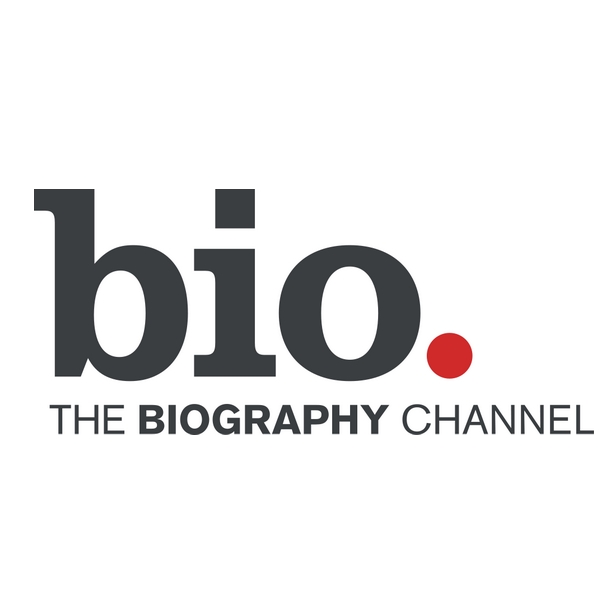
The Biography Channel Font
Fonts in UseThe Biography Channel also known as Bio was a television network dedicated to biographical programming. It launched in 1999 and was later rebranded as FYI in 2014.
The font used for "bio" appears to be URW Clarendon Narrow Medium, but with the dot on the "i" replaced by a square. The complete channel name below is written in Akzidenz Grotesk.